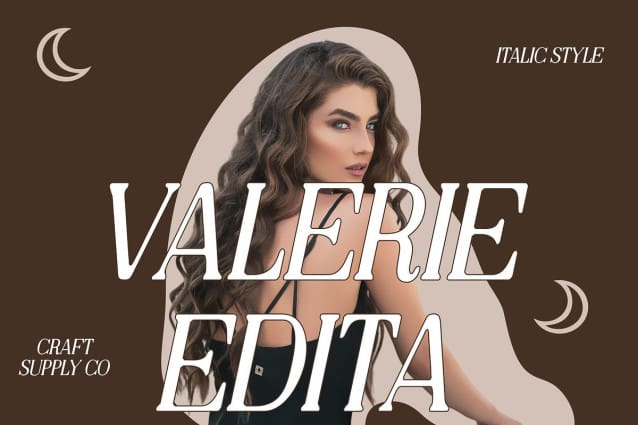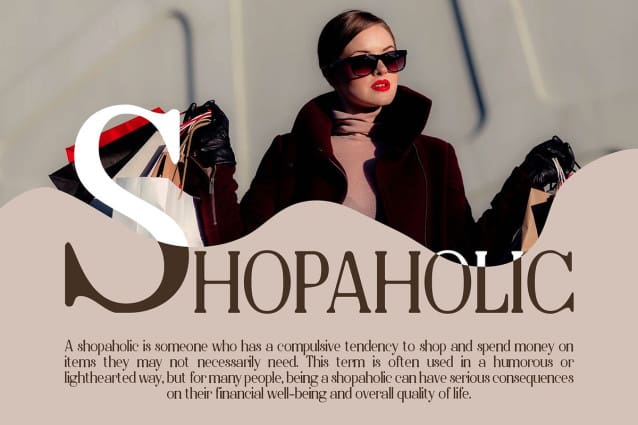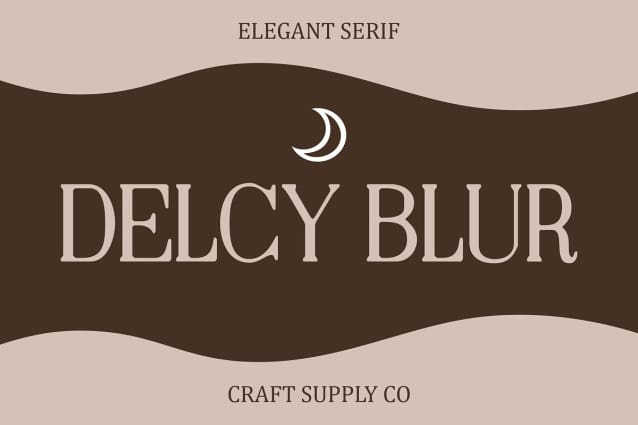
Delcy Blur Font
Delcy Blur Font: Classic Charm with a Modern Twist. Low Contrast Serif Design Delcy Blur boasts a timeless serif design with low contrast, exuding classic vibes that stand the test of time. Its elegant strokes and refined shapes give it a sophisticated appearance.
Subtle Blur Effect The font is enhanced with a subtle blur effect, adding a modern twist to its traditional style. This effect softens the edges and creates a unique visual appeal that captivates the audience.
Ideal for Display Purposes With its classic yet modern aesthetic and subtle blur effect, This font is an ideal choice for display purposes. It commands attention and adds a touch of elegance to headlines, banners, and signage.
Versatile Application Despite its classic charm, This font is versatile in its application. From branding and editorial design to packaging and invitations, it lends a sense of sophistication to any project.
Timeless Elegance with a Contemporary Flair This font seamlessly combines classic serif design with a modern blur effect, resulting in a font that is both timeless and contemporary. Its versatility and charm make it a valuable addition to any designer’s toolkit, capable of elevating various design projects with its unique aesthetic.